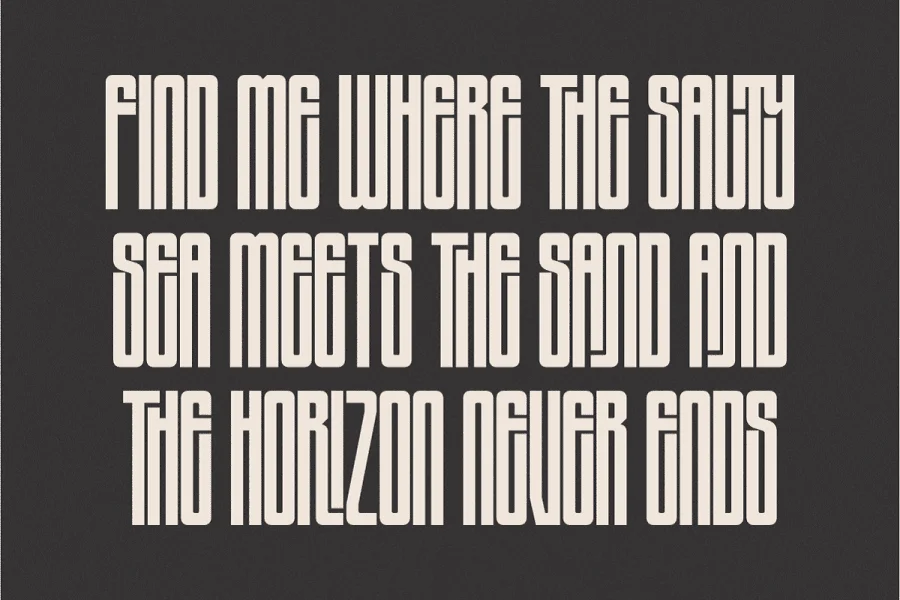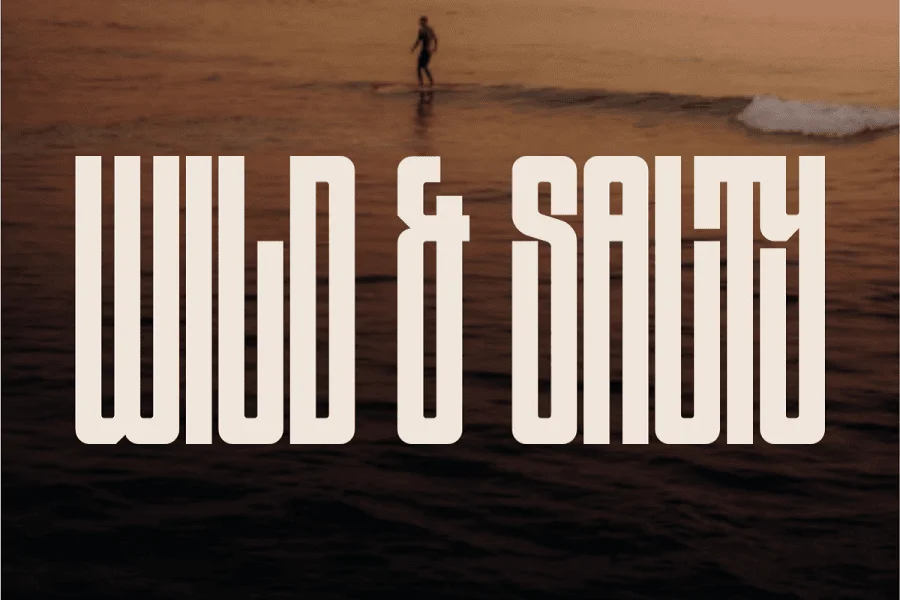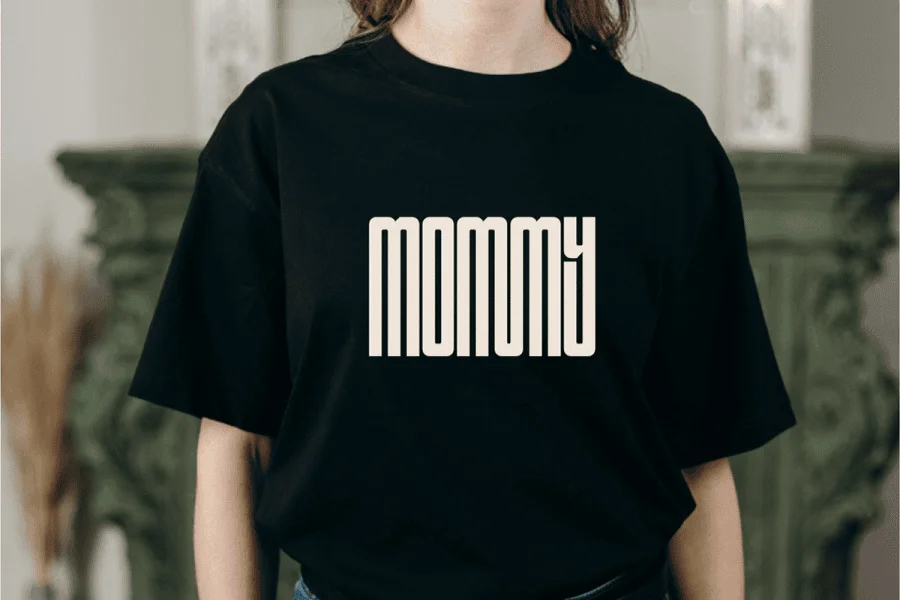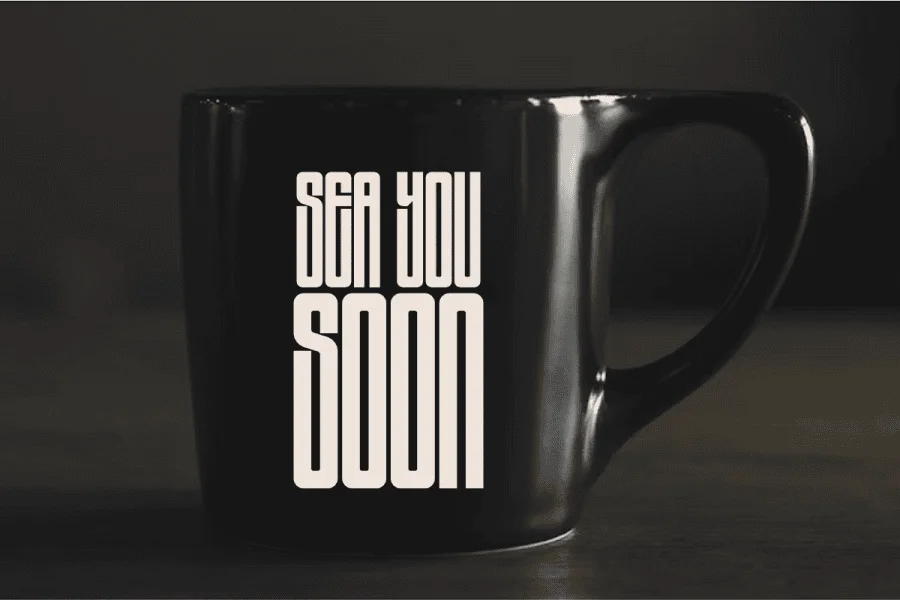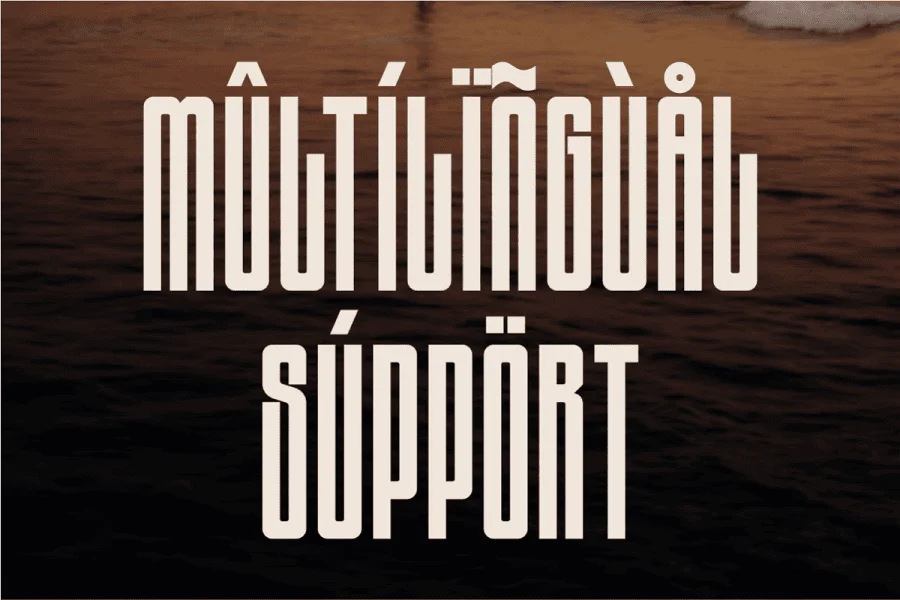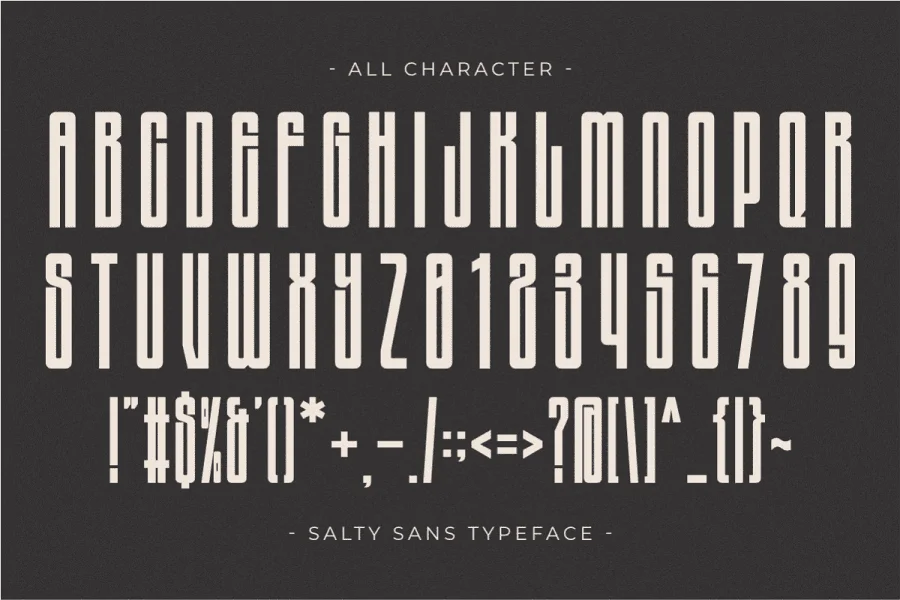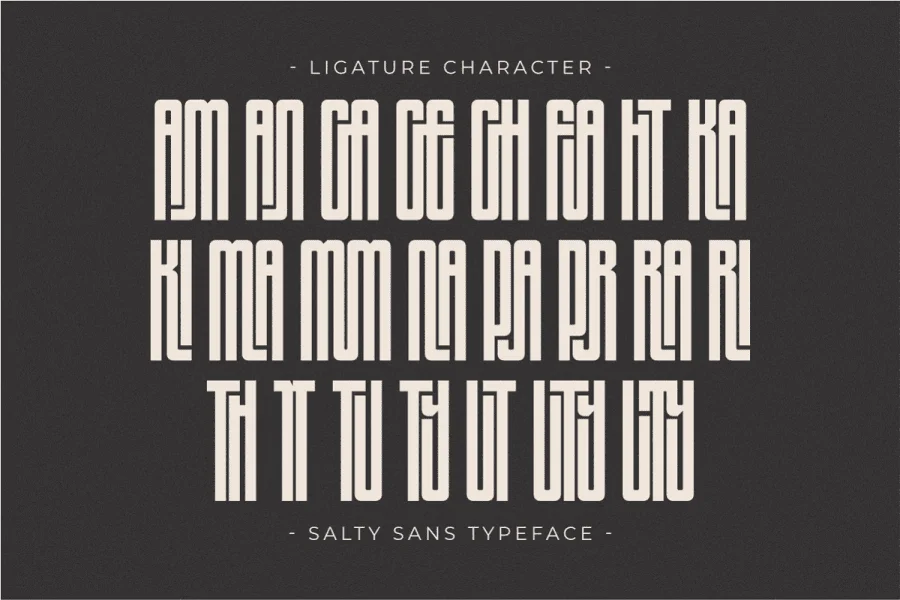
Salty Sans is a sleek and authoritative Modern Condensed Sans Serif font built for maximum impact in tight spaces. Featuring tall, clean lines and a bold, blocky silhouette, this all-caps typeface is perfectly suited for minimalist branding, industrial logos, sports media, and contemporary streetwear designs. Its professional and space-saving geometry makes it an essential tool for high-visibility headlines, movie posters, architectural layouts, and digital marketing materials that require a strong, sophisticated, and masculine aesthetic.